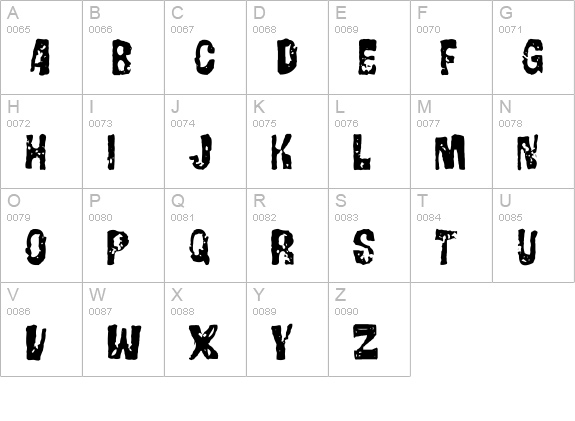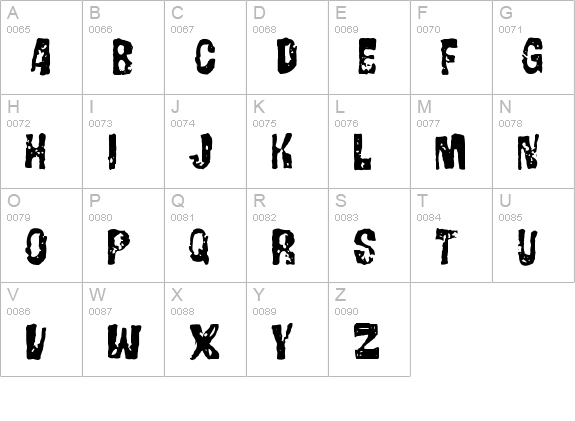
GorgoBold Font Details
GorgoBold is a modern and sophisticated font that exudes strength and elegance. With its bold lines and unique curves, this typeface commands attention and makes a powerful statement in any design project. Perfect for headlines, logos, and branding materials, GorgoBold adds a touch of style and sophistication to any project. The best part? GorgoBold is available for free download at FontsMarket.com. Whether you're a designer looking to add a bold touch to your work or a business owner wanting to make a strong impression, GorgoBold is the perfect choice. Download this stunning font today and elevate your designs to the next level.